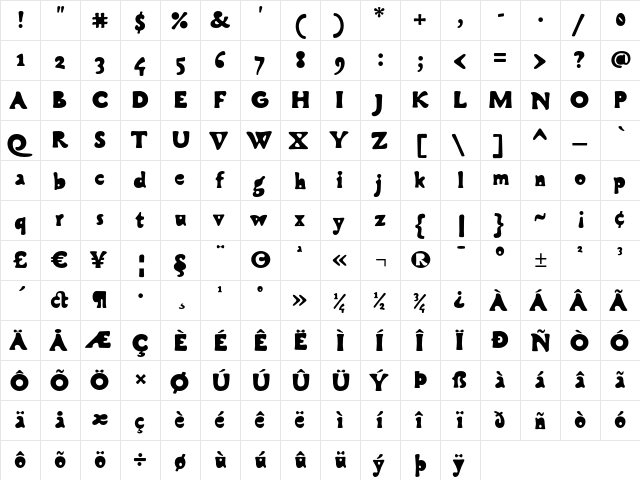
Cobra Bold
Design Context for Cobra Typeface
Cobra is a composed and adaptable typeface that performs quietly and consistently across a wide range of design contexts. Its bold stroke weight gives it real presence on the page.
Pro Tip: Use Cobra in both headline and body roles to test its range before committing to a single application.